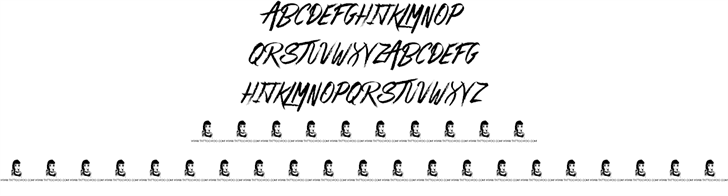
Free Mega Team Font
Featuring the adorable free mega team font. This free font file was found from the amazing source called Font Space. Showcase your designs like a graphic design pro by adding a new touch with this beautiful font.